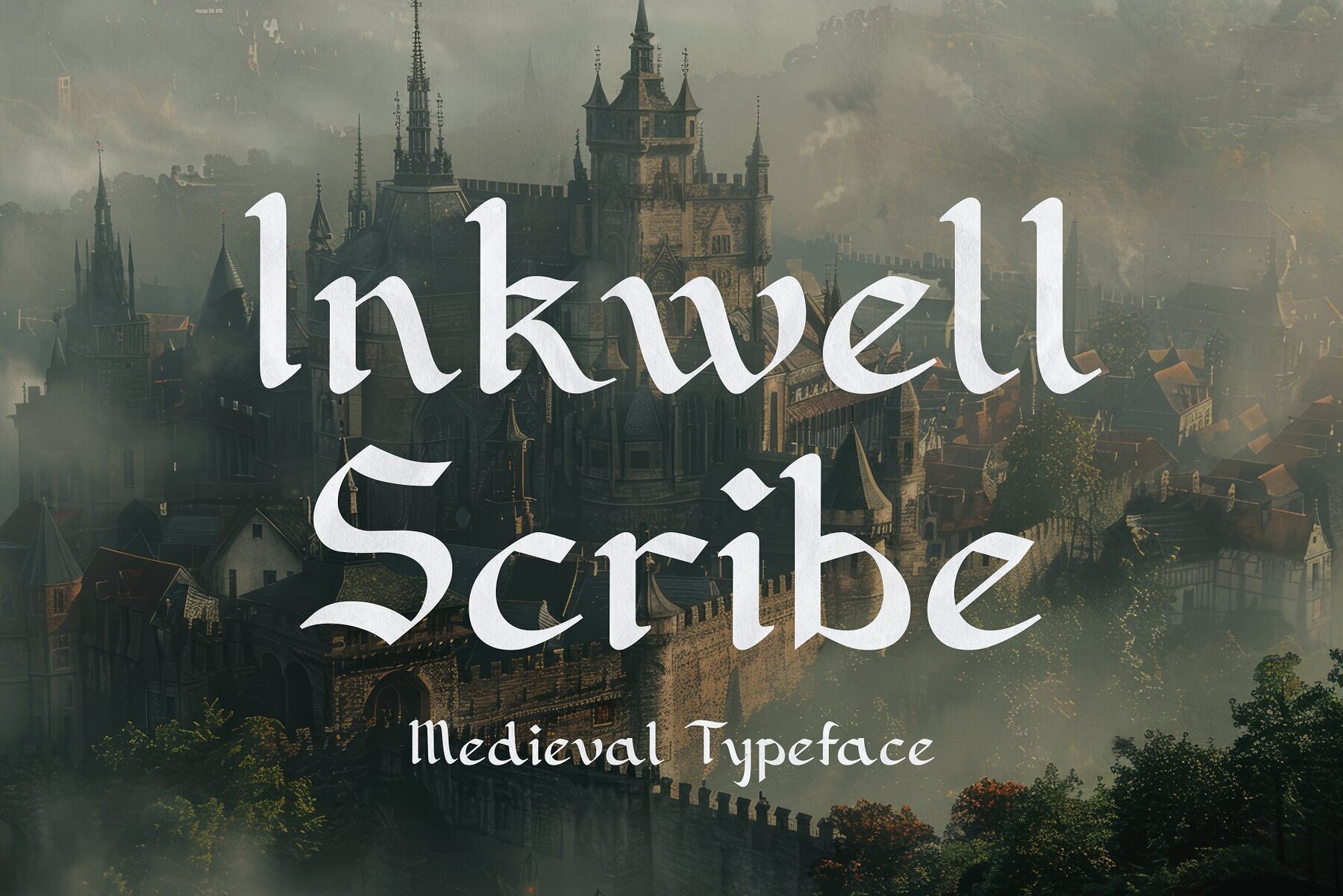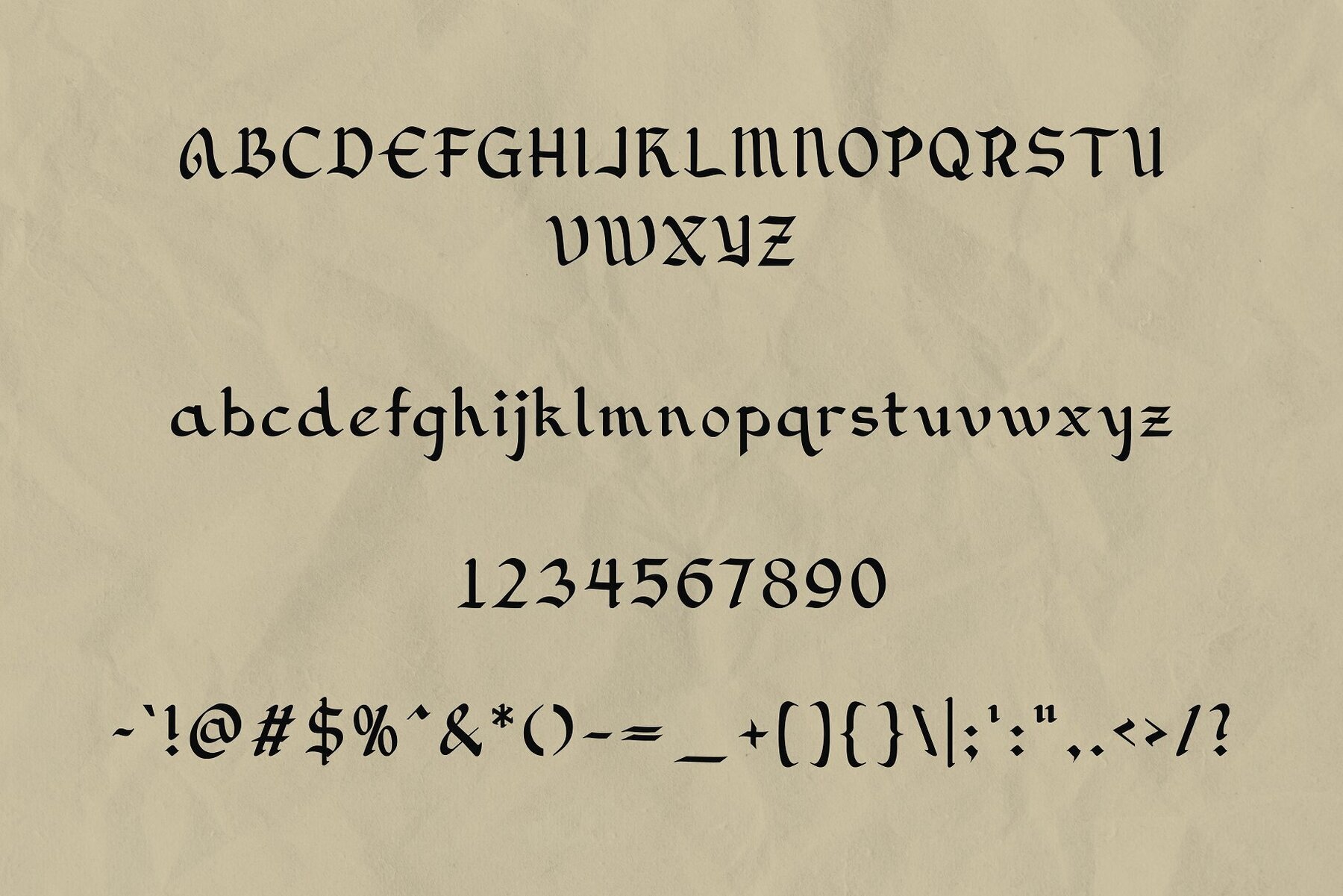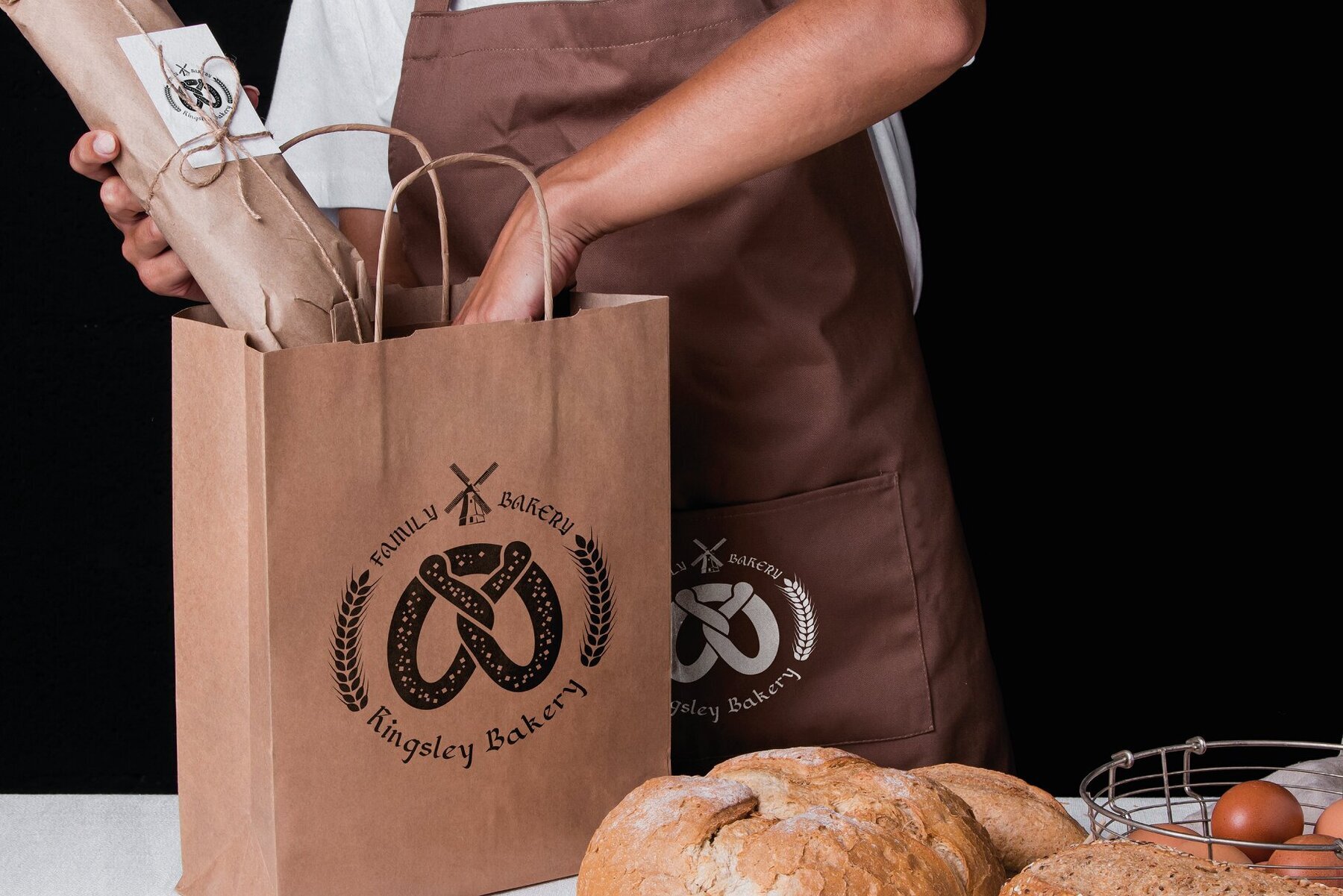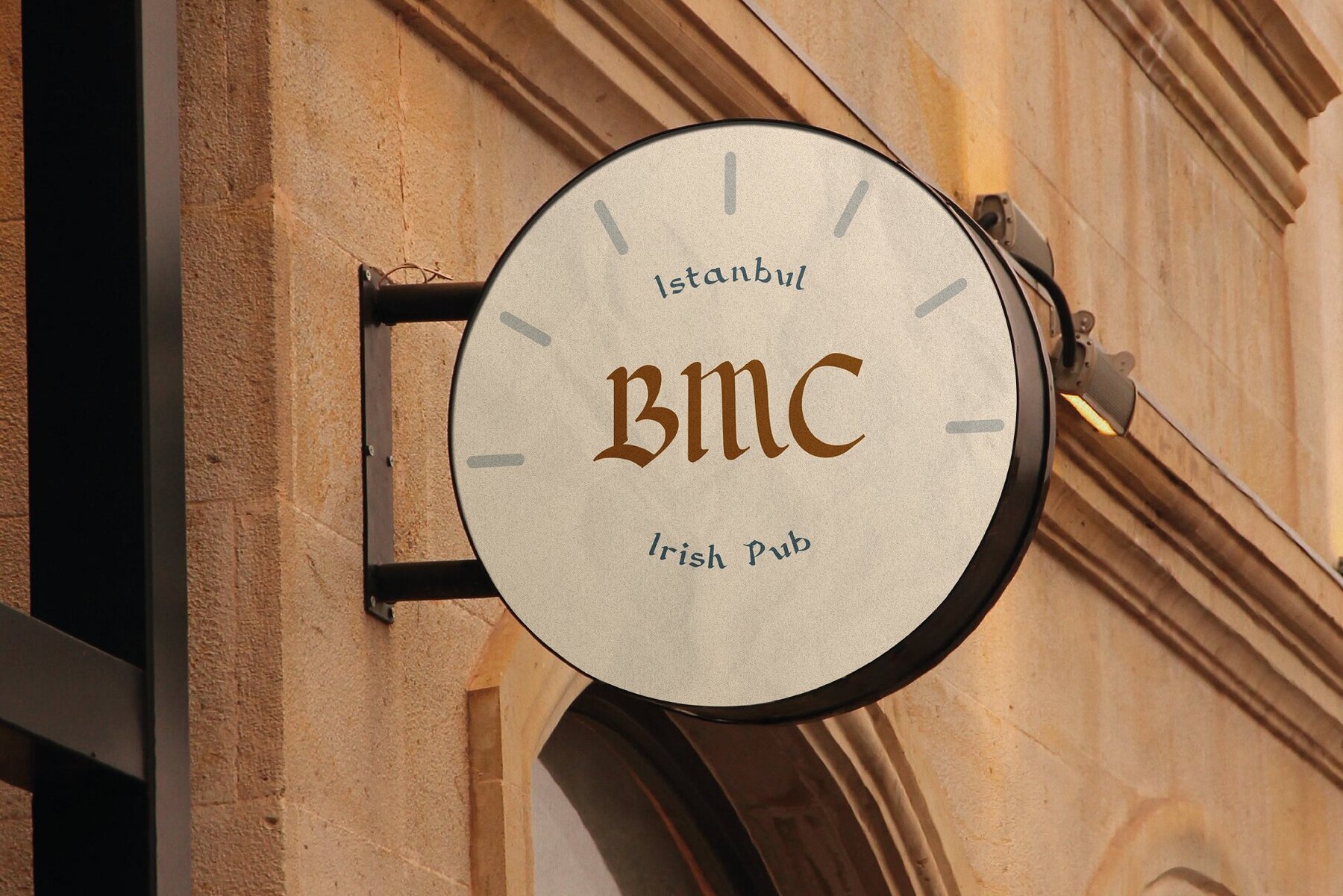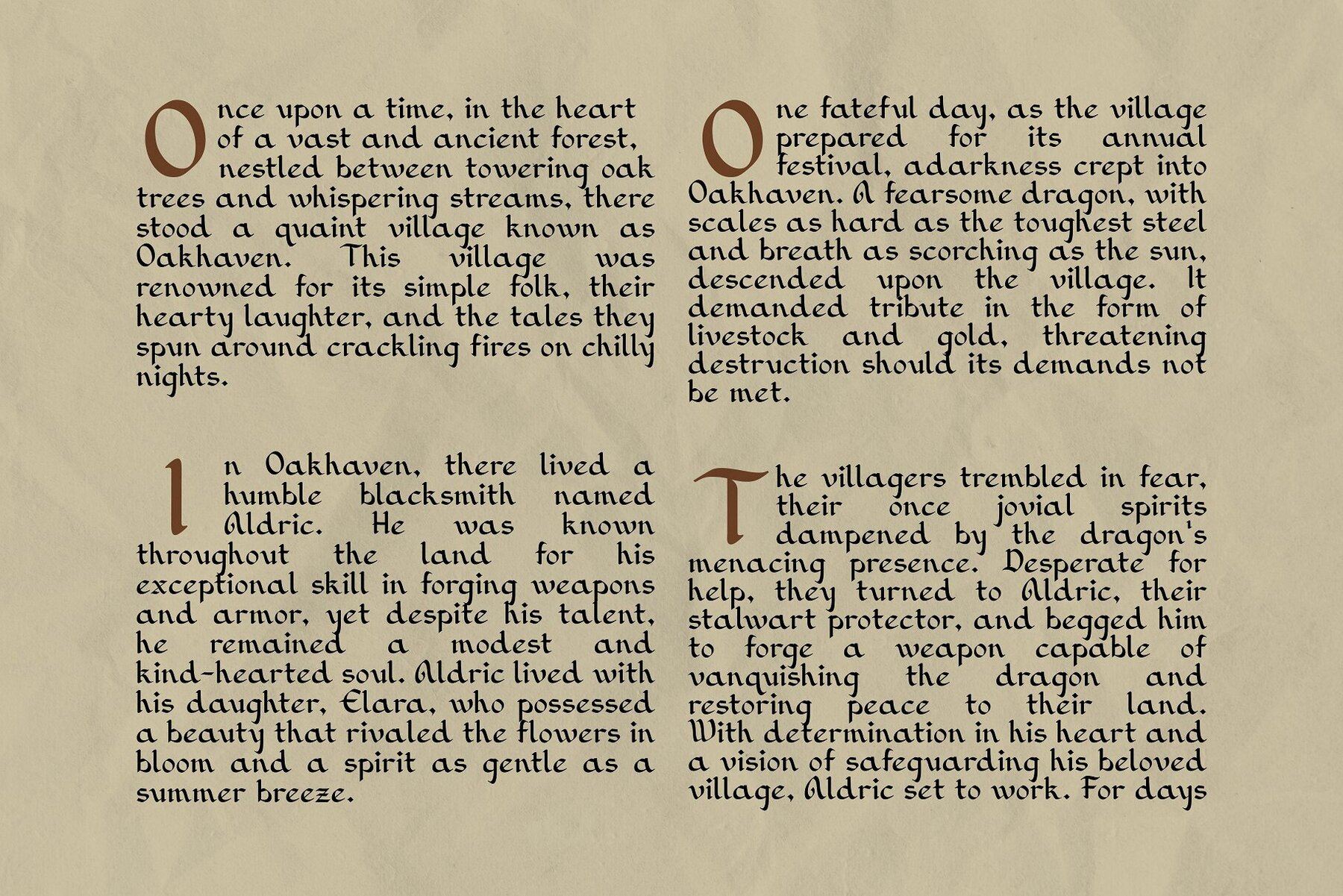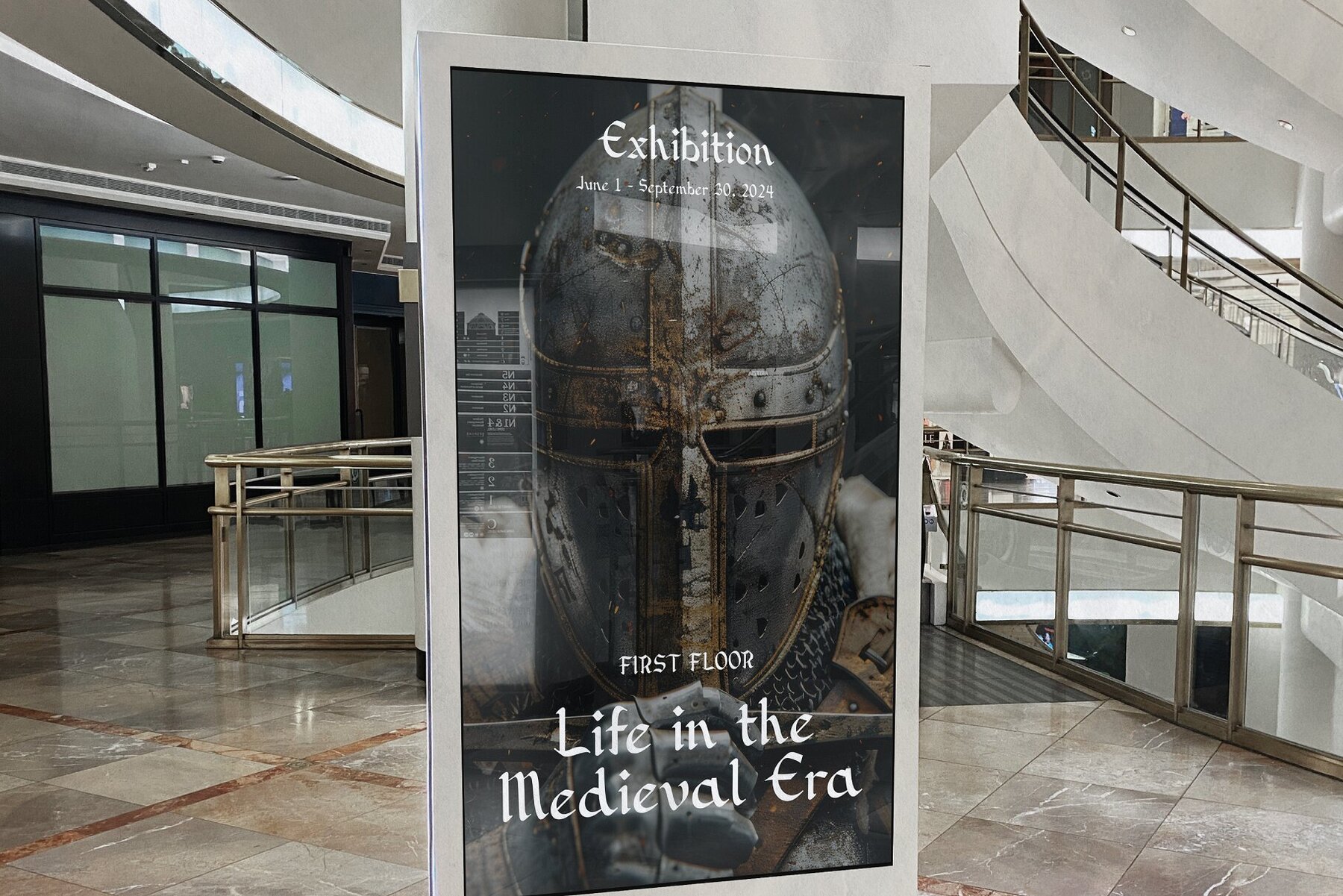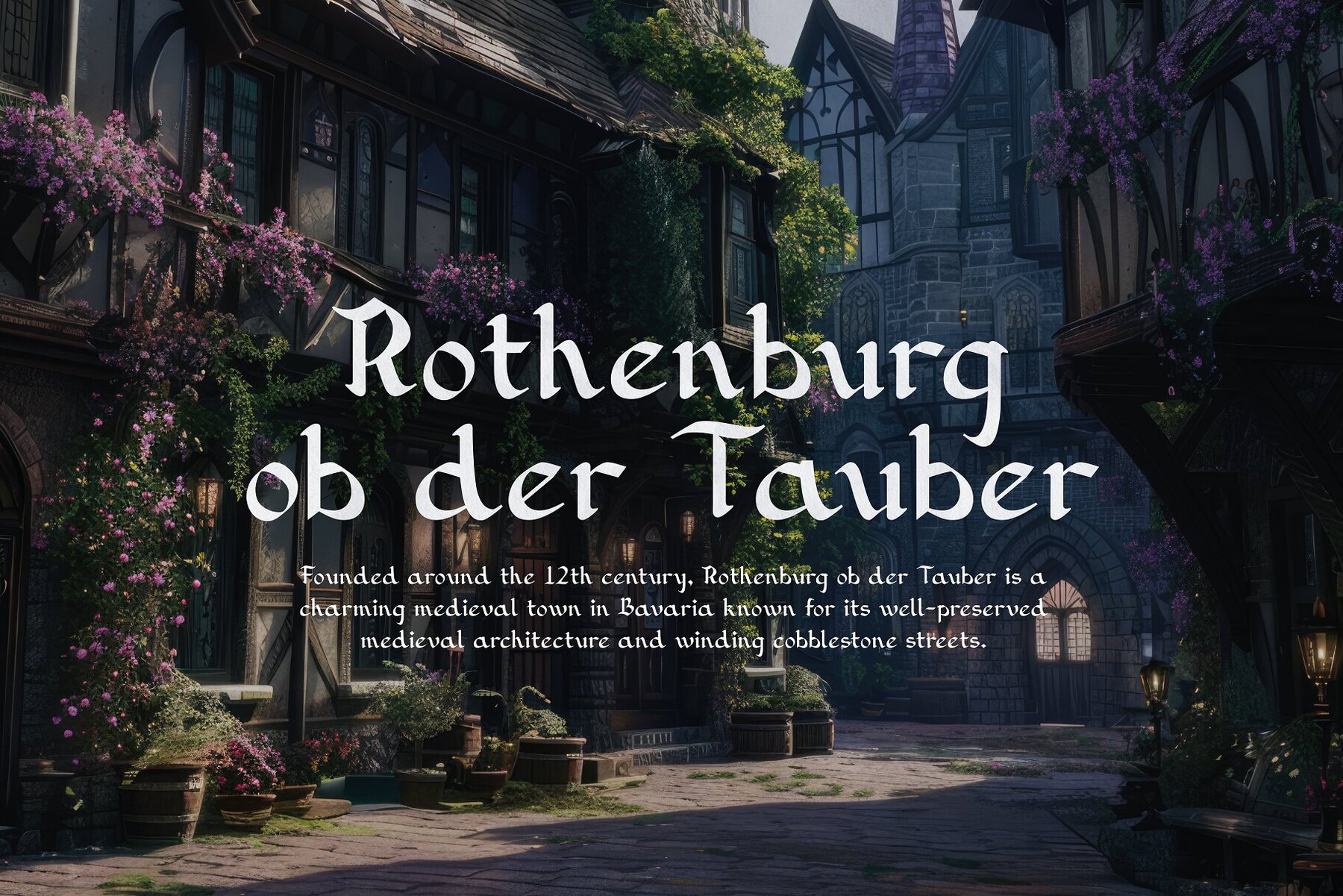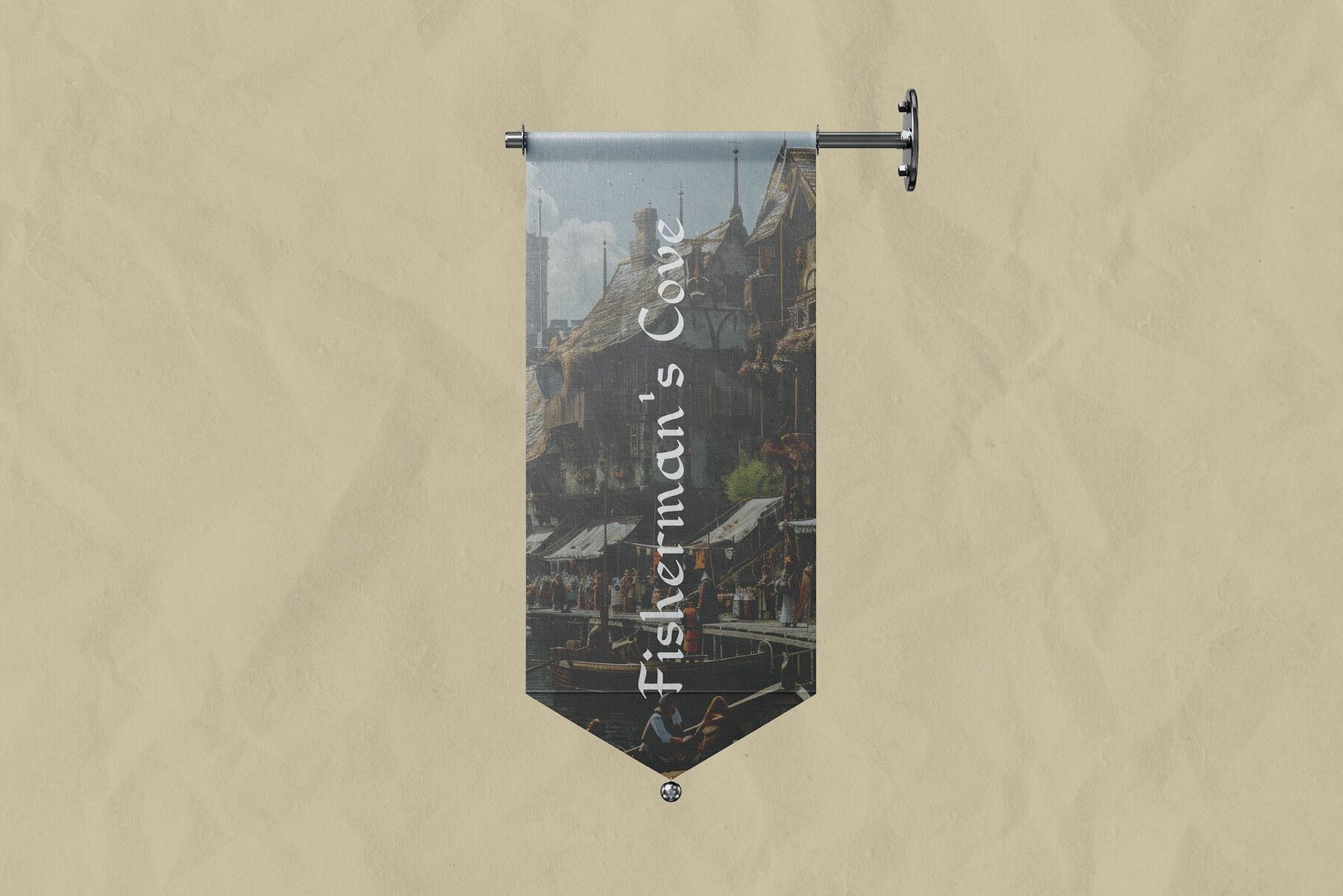
Inkwell Scribe Font
Inkwell Scribe
Step into the enchanting world of the Middle Ages with Inkwell Scribe, a meticulously crafted typeface that captures the essence of medieval manuscripts and calligraphy. Perfect for adding historical elegance to modern designs, this font weaves the artistry and tradition of medieval script into every character. Whether you’re designing invitations, logos, or digital art that needs a touch of old-world charm, Inkwell Scribe is your go-to choice.
Immerse your audience in the rich, artistic world of medieval calligraphy with Inkwell Scribe. This typeface ensures your designs evoke a sense of history and tradition. Bring the beauty of medieval script to life and let your creations tell a story of elegance and craftsmanship with Inkwell Scribe Typeface.